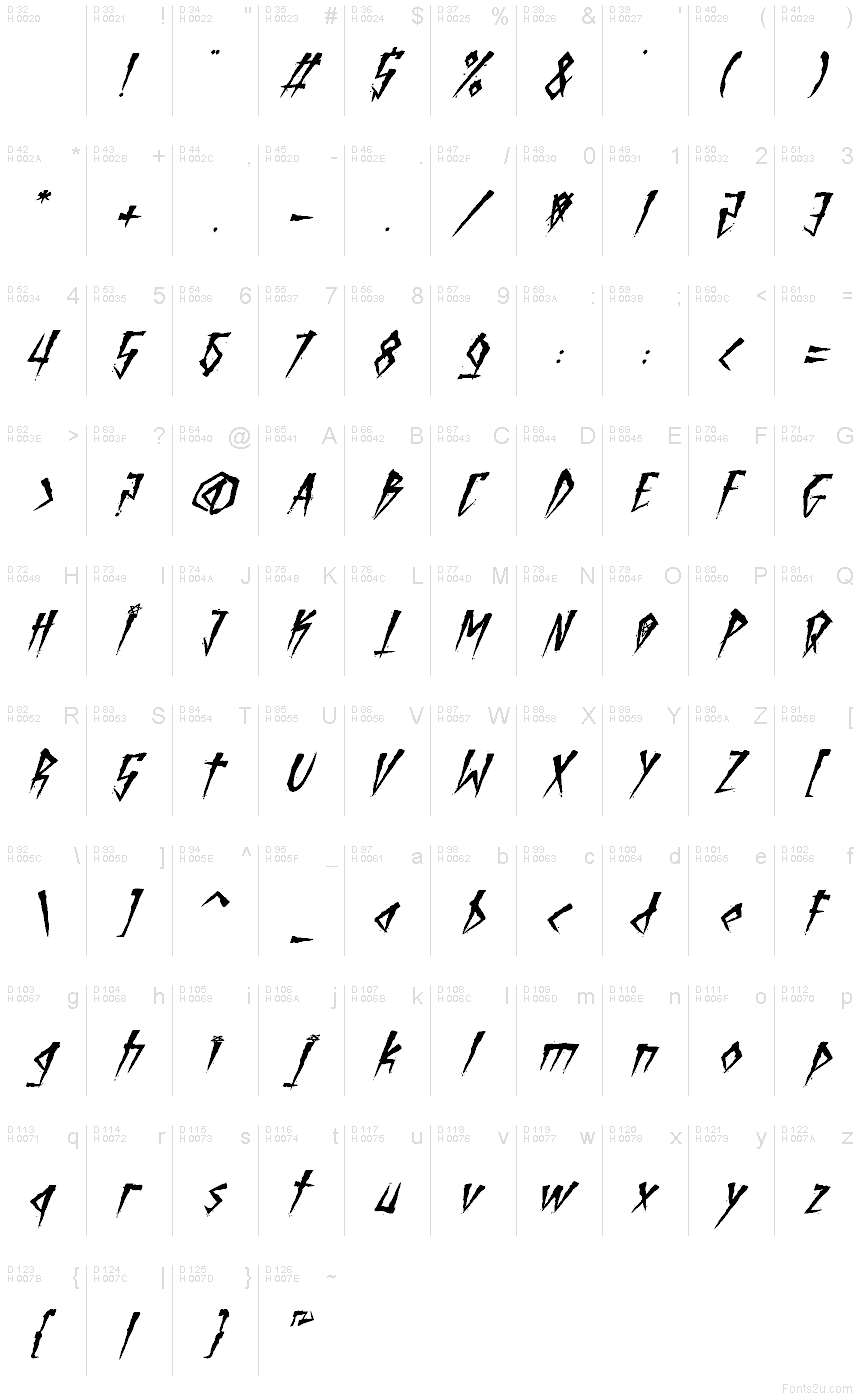
Brutal Brushstrokes One
Brutal Brushstrokes One font by PutraCetol Studio is a free Halloween brush display font from the Brutal Brushstrokes family. Jagged, slashed letterforms look like they were carved with a box cutter—sharp angles, uneven pressure, and inky splatters create a frantic, high-contrast rhythm that jumps off dark backgrounds. It’s built to scream without becoming unreadable, so your headline keeps its bite at a glance.
Using Brutal Brushstrokes One, you can nail haunted house posters, spooky party flyers, thriller book covers, escape room branding, horror game titles, YouTube thumbnails, and seasonal merch. This free font works best big and bold; keep body copy separate. Pair with a clean sans for details, and let the spiky strokes carry the mood in your main line.